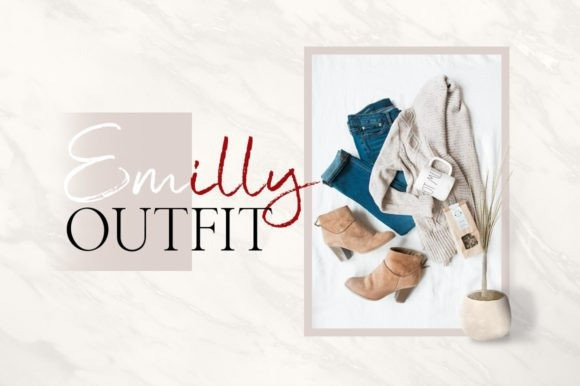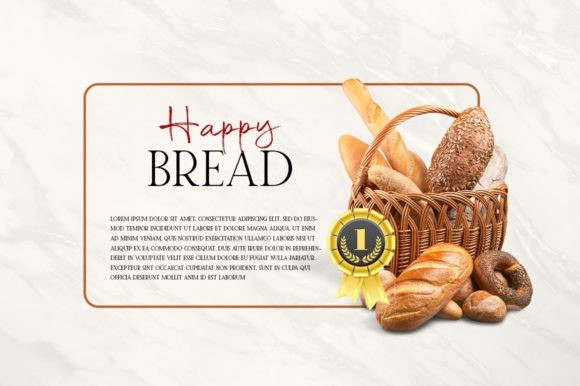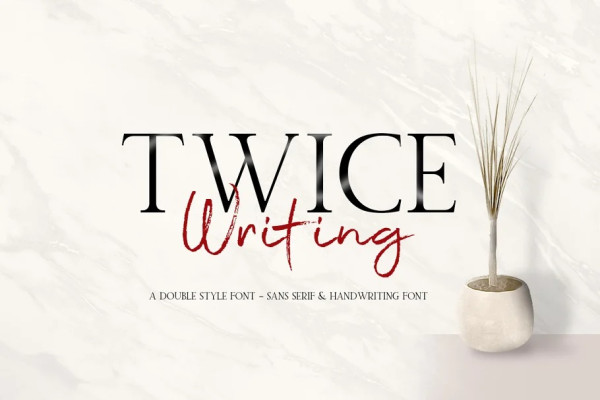
Twice Writing Font Duo
Twice Writing Font Duo, is a fun modern script font, fresh & modern style with Serif font. You can combine script and Serif to get amazing results. TwiceWriting Font suitable for logo, branding, greeting card, poster and any design that you create.